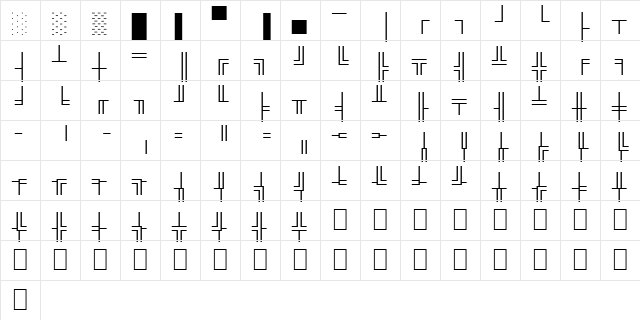
WP BoxDrawing Normal Font Preview
WP BoxDrawing Normal
Design Context for WP BoxDrawing Typeface
WP BoxDrawing takes a measured approach to typography — its balanced proportions and neutral character make it a reliable workhorse for both digital and print work.